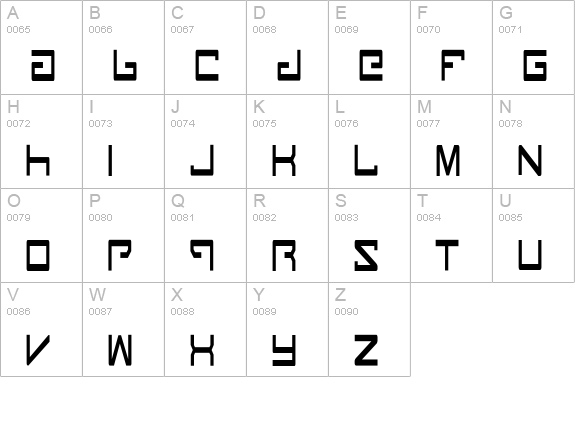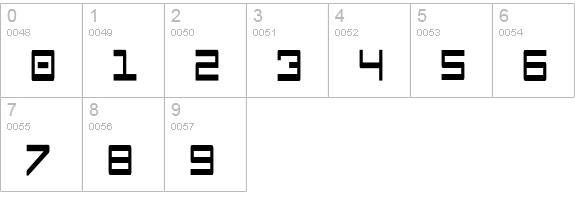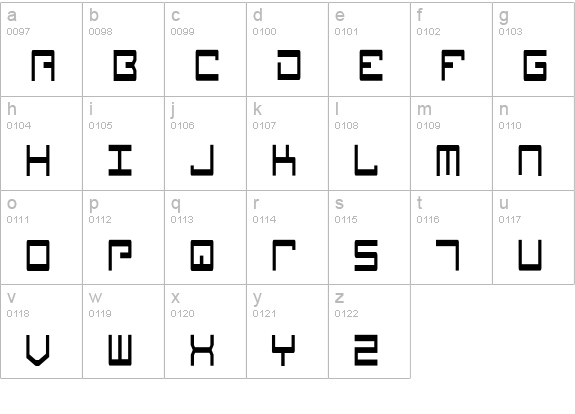
Legion Condensed Font Details
Legion Condensed is a distinctive, condensed-width variant in the Legion typeface family \xE2\x80\x94 well suited to design and typography projects.
Legion Condensed font is a stunning display typeface that exudes elegance and sophistication. Its sleek and refined letterforms capture attention and make a bold statement in any design project. With its condensed proportions, Legion Condensed is perfect for headlines, logos, posters, and other typographic applications that require a strong visual impact. This font effortlessly merges classic and modern design elements, resulting in a harmonious blend of tradition and innovation. Legion Condensed strikes the perfect balance between legibility and uniqueness, making it a versatile choice for both print and digital media. What sets Legion Condensed font apart is not only its exceptional design, but also the fact that it is available for free. Yes, you read that right! This remarkable font can be freely downloaded at FontsMarket.com, a reputable online platform for high-quality fonts. By offering Legion Condensed as a free resource, FontsMarket.com aims to empower designers and creatives with access to top-notch typographic tools without breaking the bank. Whether you are a seasoned professional or a budding designer, Legion Condensed font is a must-have in your typographic repertoire. Its versatility, elegance, and availability make it a valuable asset for a wide range of projects. So why wait? Visit FontsMarket.com today and experience the beauty and power of Legion Condensed font, freely at your fingertips.